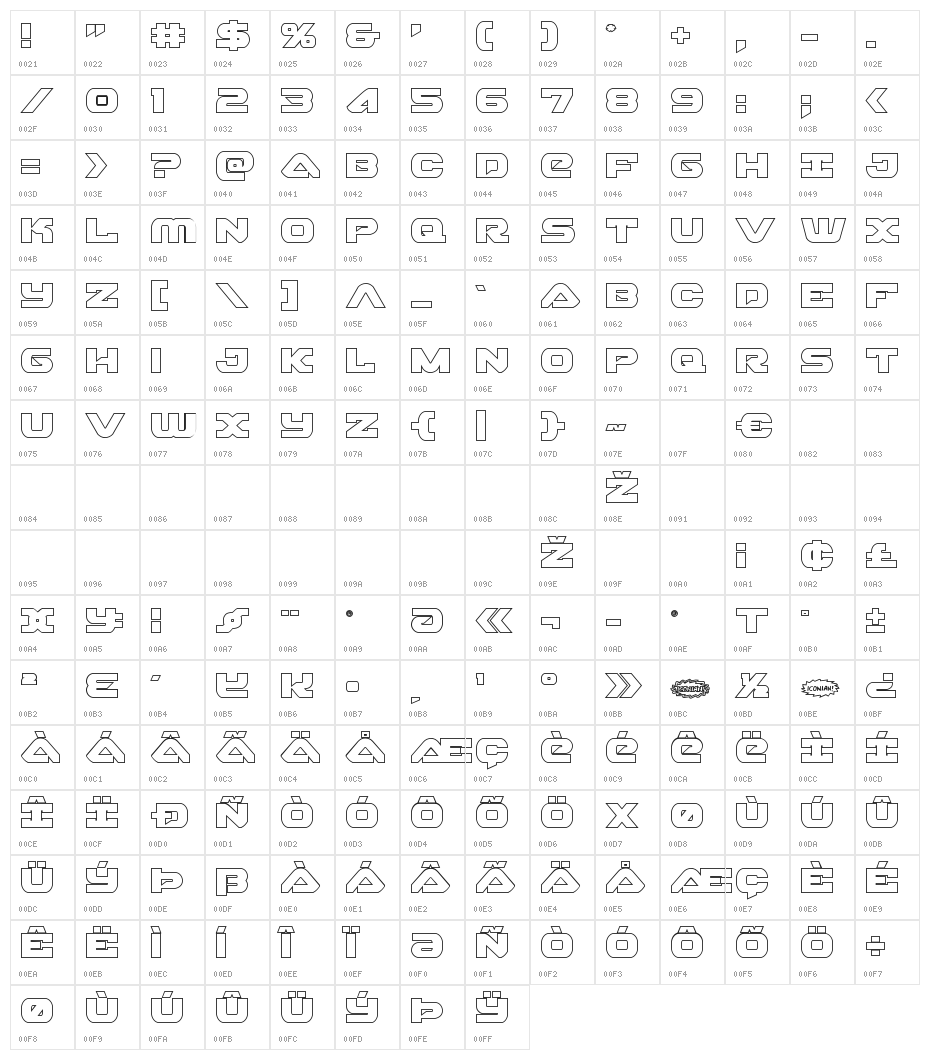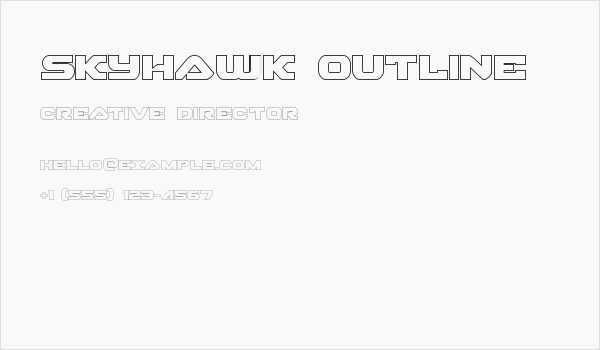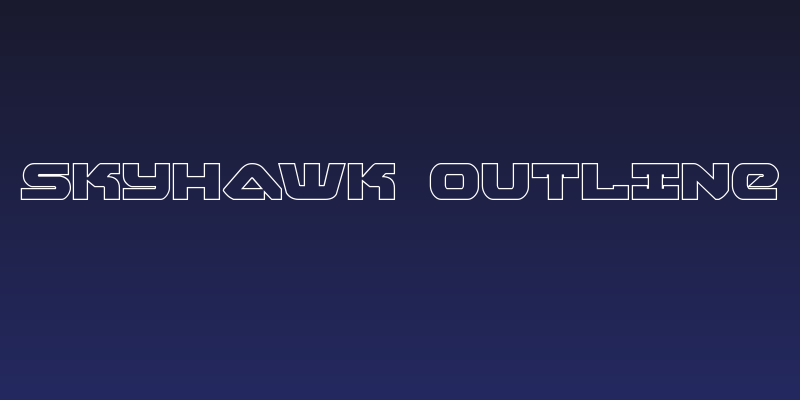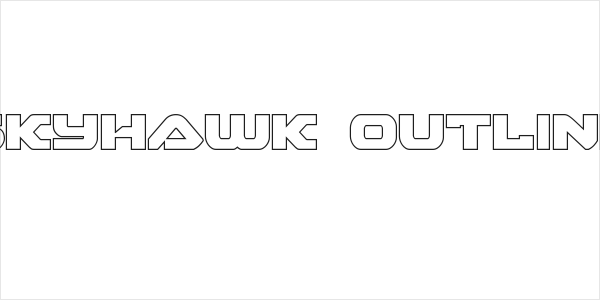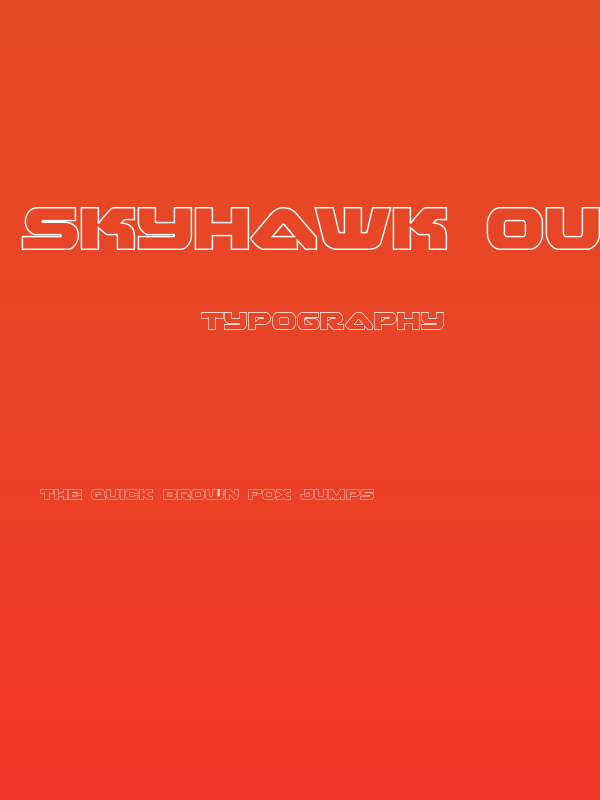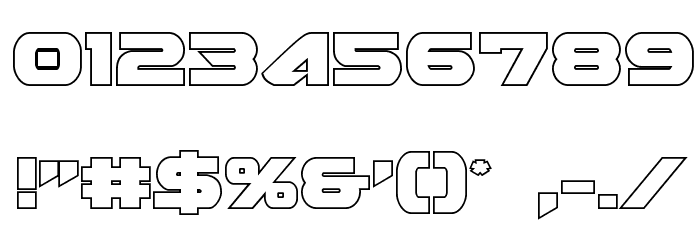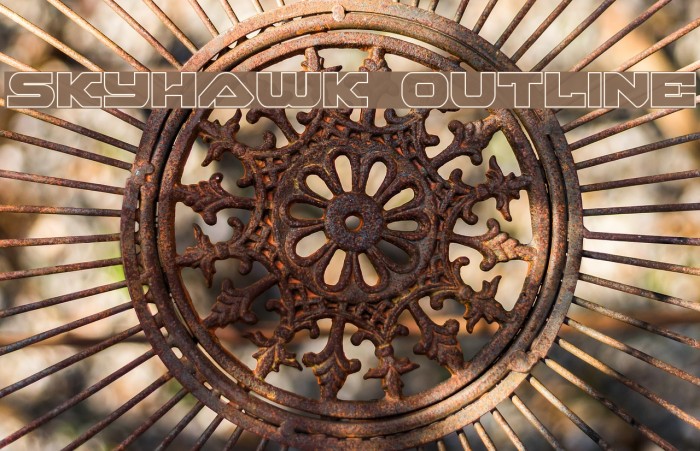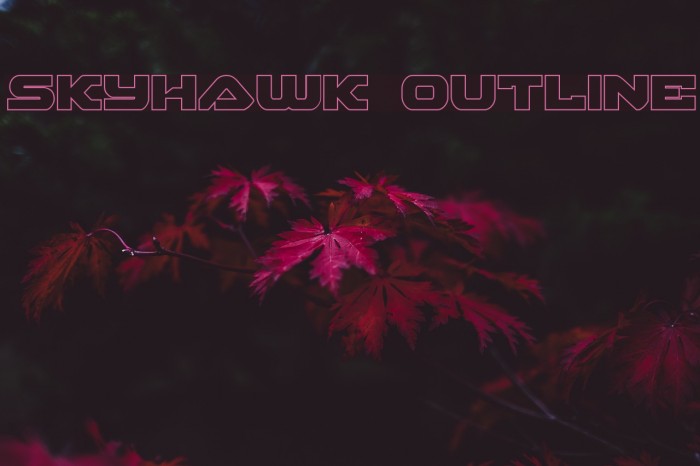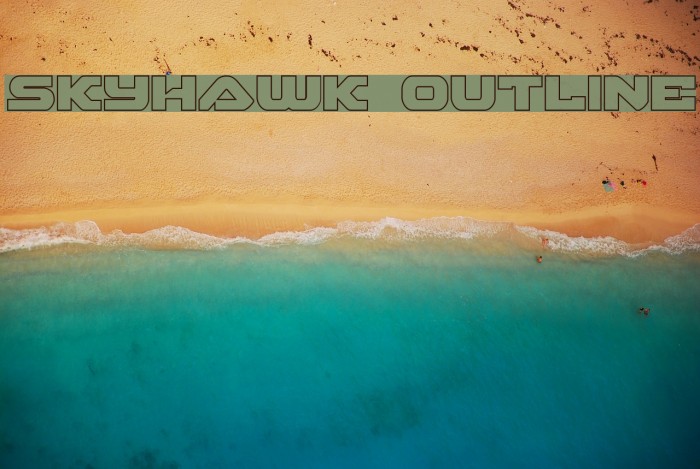
Skyhawk Outline Font
Skyhawk Outline Description
This font features a bold, geometric outline style that gives it a futuristic and modern appearance. Each character is crafted with precision, maintaining a consistent thickness throughout the outline, which creates a striking visual impact. The angular and sharp edges of the letters contribute to its dynamic and edgy look, making it suitable for attention-grabbing designs. The uppercase and lowercase letters maintain a uniform height, enhancing readability while preserving the unique aesthetic. The numerals and special characters are designed to match the overall style, ensuring cohesion across all elements.
| Proposed Projects | Ideal for sci-fi themed posters, video game titles, branding for tech companies, and modern logo designs. |